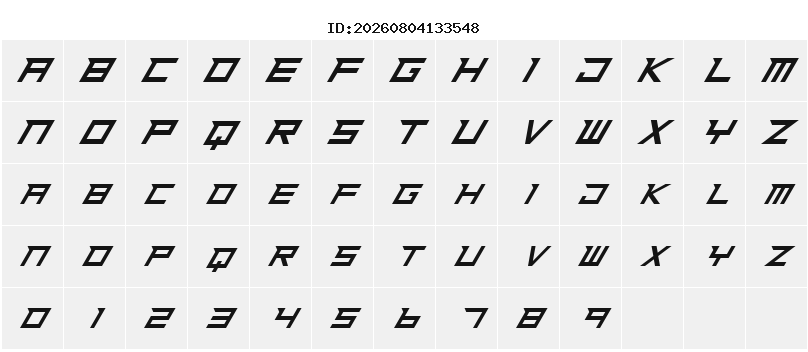
• Font Name: Ninja Rush
• Designer: Darrell Flood
About Ninja Rush.otf
Ninja Rush.otf is a modern, elegant sans-serif font designed for ultimate readability and visual harmony. Perfect for branding, headlines, web design, and print materials.